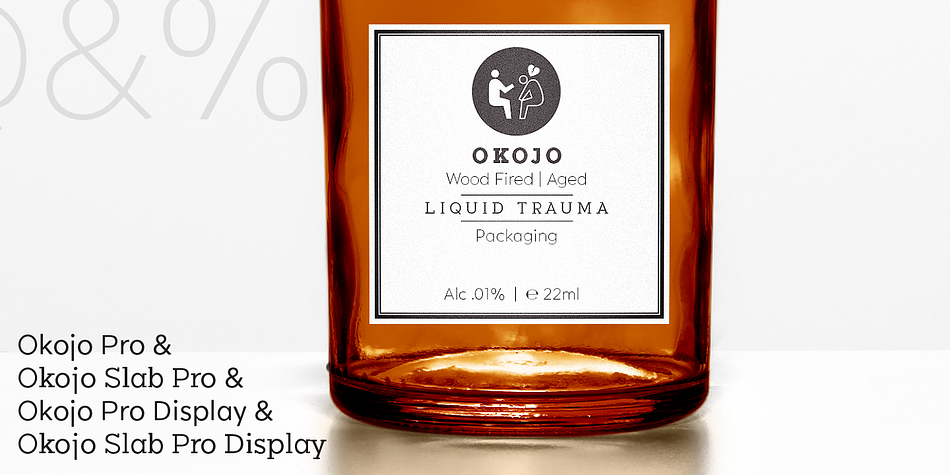
Okojo Pro
Designed by Ian Lynam, Okojo Pro is a sans serif and slab serif font family. This typeface has twenty-four styles and was published by Wordshape.
The Okojo Pro Complete family is a reworking of Wordshape’s immensely popular Okojo family of typefaces.
It includes Okojo Pro, a semi-geometric sans serif, Okojo Slab Pro, a semi-geometric slab serif, Okojo Pro Display, a round-cornered sans serif variation, and Okojo Slab Pro Display, a round-cornered slab serif.
The entire Okojo Pro family looks great at small or large sizes.
The Okojo Pro family is designed for readability in long texts while simultaneously functioning as effective display type.
Features of Okojo Pro Display:
- all lowercase characters have an enlarged x-height, creating less optical dazzle than typefaces like Futura, Neutra or Avant Garde
- more humanist numerals and punctuation for enhanced readability
- complete Western, Central and Eastern European characters sets
- radically improved spacing guaranteeing beautiful results in print and on screen for the Czech, English, Hungarian, Croatian, Esperanto, Maltese, Romanian, Turkish, Albanian, French, Portuguese, Spanish, Basque, Bulgarian, Finnish, Swedish, Norwegian languages
The Okojo Pro Display family is influenced by the type designs of Paul Renner and Herb Lubalin, but smoothed over with more than a bit of Americana.
Both work well on-screen as webfonts and in print as book type.
Each is hinted with accuracy and kerned with precision.The lighter weights are slightly slimmer than the regular and bold weights to give the typeface more of a vertical feel, inviting readers’ to rapidly read typeset text with a maximum of contrast and a minimum of optical distortion.
Okojo: it’s a little bit country and a little bit rock’n’roll.
The Okojo Pro Complete family is a reworking of Wordshape’s immensely popular Okojo family of typefaces. It includes Okojo Pro, a semi-geometric sans serif, Okojo Slab Pro, a semi-geometric slab serif, Okojo Pro Display, a round-cornered sans serif variation, and Okojo Slab Pro Display, a round-cornered slab serif.
The entire Okojo Pro family looks great at small or large sizes. The Okojo Pro family is designed for readability in long texts while simultaneously functioning as effective display type.
Features of Okojo Pro Display:
- all lowercase characters have an enlarged x-height, creating less optical dazzle than typefaces like Futura, Neutra or Avant Garde
- more humanist numerals and punctuation for enhanced readability
- complete Western, Central and Eastern European characters sets
- radically improved spacing guaranteeing beautiful results in print and on screen for the Czech, English, Hungarian, Croatian, Esperanto, Maltese, Romanian, Turkish, Albanian, French, Portuguese, Spanish, Basque, Bulgarian, Finnish, Swedish, Norwegian languages
The Okojo Pro Display family is influenced by the type designs of Paul Renner and Herb Lubalin, but smoothed over with more than a bit of Americana.
Both work well on-screen as webfonts and in print as book type. Each is hinted with accuracy and kerned with precision.The lighter weights are slightly slimmer than the regular and bold weights to give the typeface more of a vertical feel, inviting readers’ to rapidly read typeset text with a maximum of contrast and a minimum of optical distortion.
Okojo: it’s a little bit country and a little bit rock’n’roll.